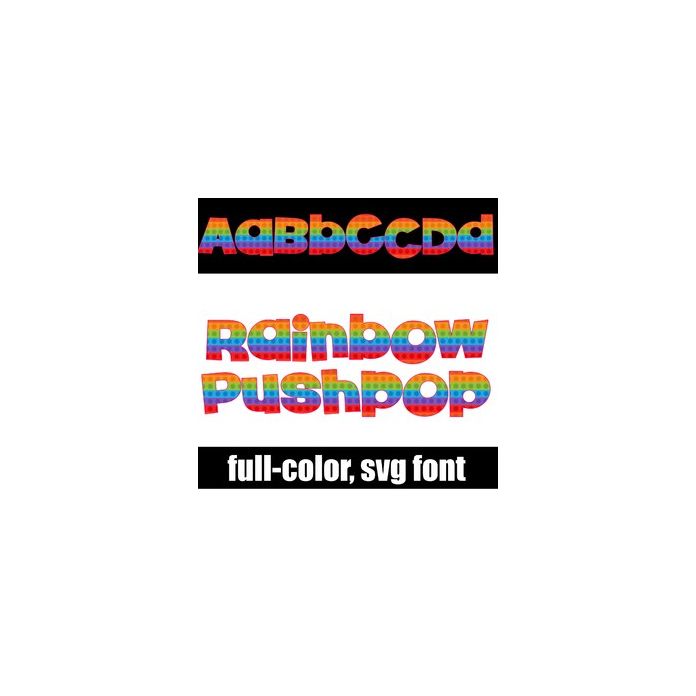
This full-color font features a rainbow colored push pop pattern in letters. This font works best for titles, displays, posters and more. Please note color fonts will show as black in non compatible programs. This font type is compatible with Silhouette Studio.